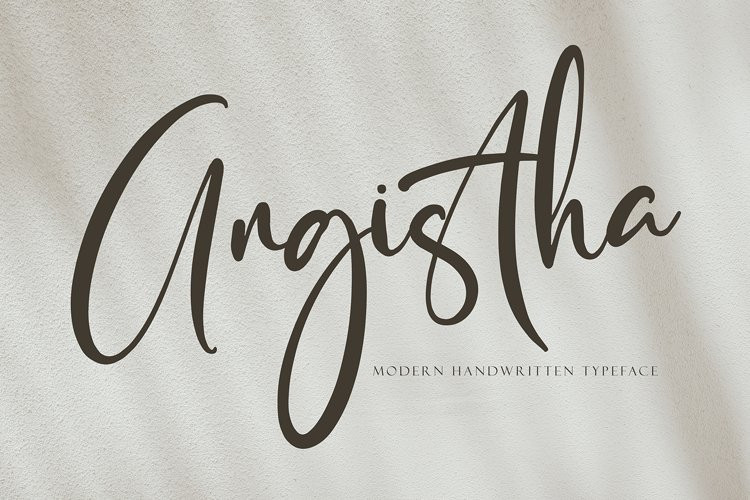
Angista Font
AngistaAngista font with new style, this font will perfect for many different project ex: quotes, logo, blog header, poster, banding, letter, invitation, stationery, etc…
Angista